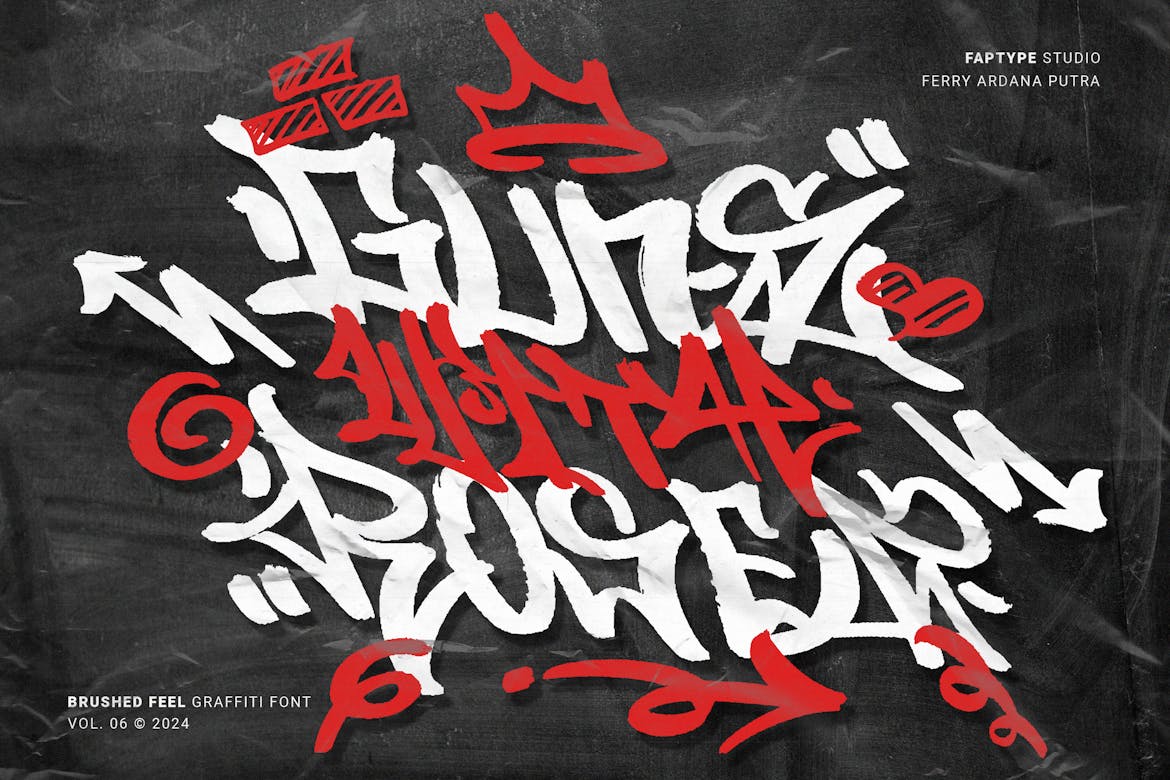
Guns With Rosez | Brushed Style Graffiti Font
Perfect for urban branding, streetwear designs, posters, logos, social media graphics, and graffiti art projects.
The Guns With Rosez | Brushed Style Graffiti Font excites designers with its bold, expressive brush strokes and edgy graffiti vibe that instantly grabs attention and conveys raw street energy.
The Guns With Rosez | Brushed Style Graffiti Font Free Download is a dynamic typeface crafted to infuse your projects with urban attitude and artistic flair. Its textured, brush-stroke appearance creates a rebellious and vibrant style perfect for street culture branding, poster art, or apparel design. Whether you’re designing logos, social media posts, or merchandise, Guns With Rosez delivers a powerful impact.
One of the key strengths of Guns With Rosez | Brushed Style Graffiti Font is its unique balance between legibility and expressive style. While its brush textures give it a raw, authentic feel, it remains clear and effective for headlines and display text, ensuring your message hits hard and loud.
In branding, Guns With Rosez conveys boldness, creativity, and urban culture. It pairs excellently with gritty textures, vibrant colors, and street art-inspired layouts, helping brands connect with a youthful, edgy audience.
For digital projects, this font enhances website headers, social media graphics, and promotional materials with its distinctive graffiti style. Its energetic character ensures your digital presence stands out with streetwise personality.